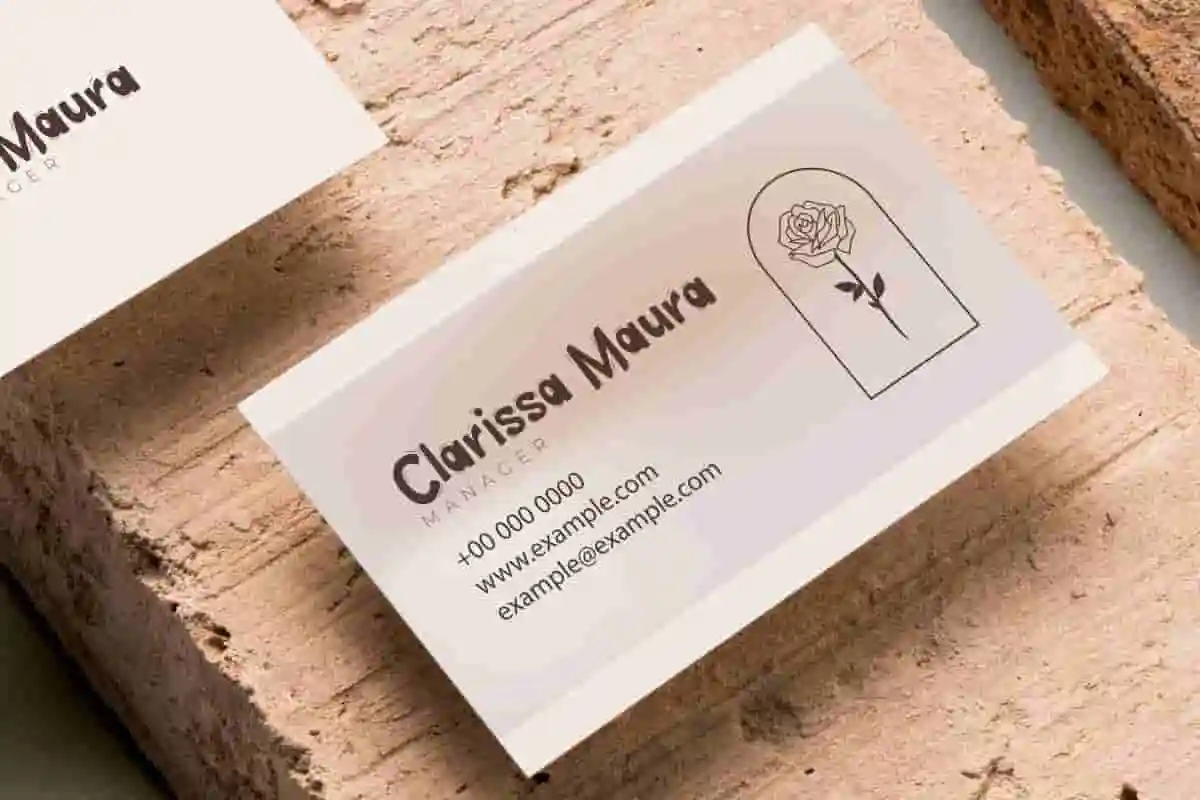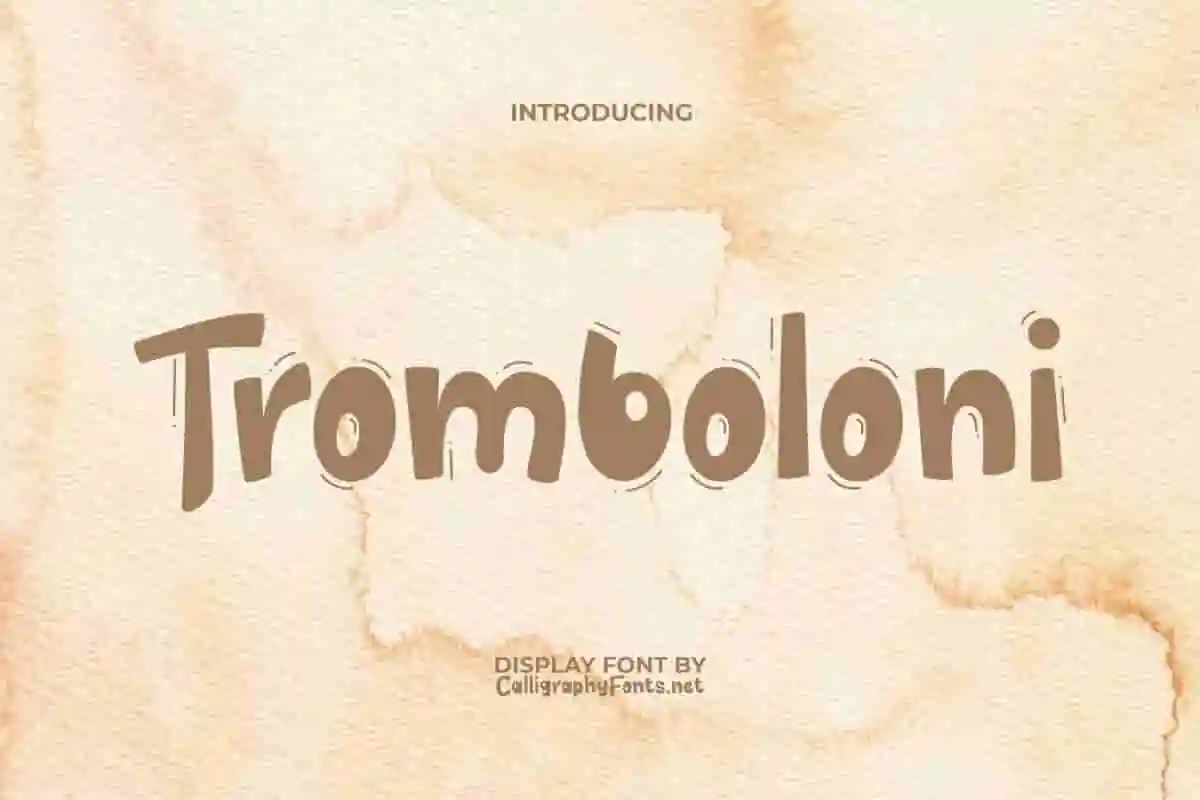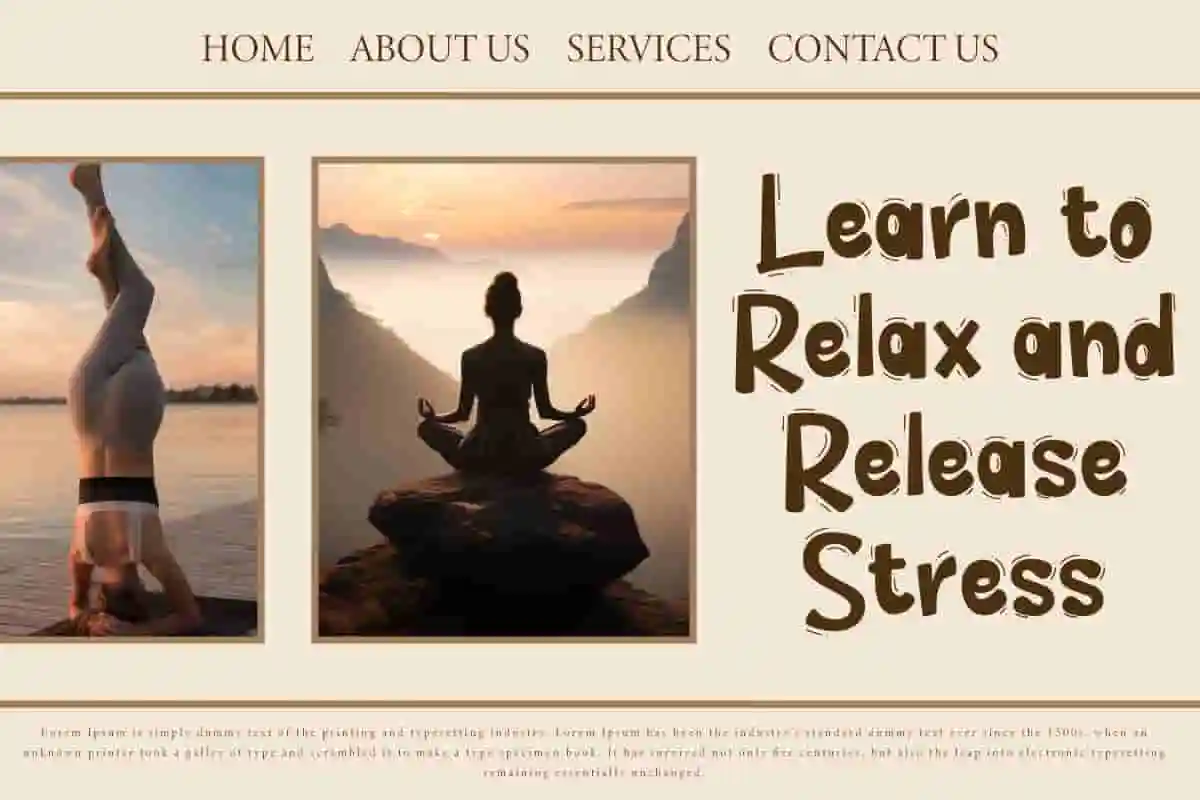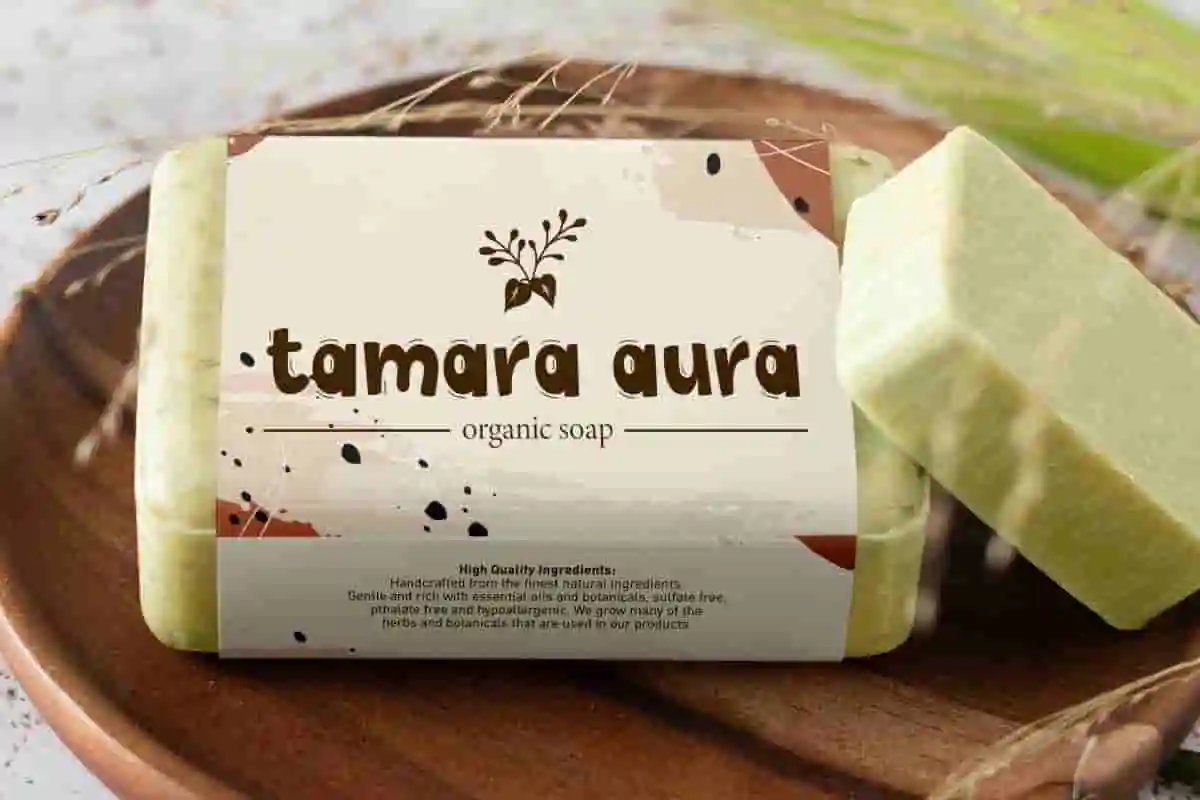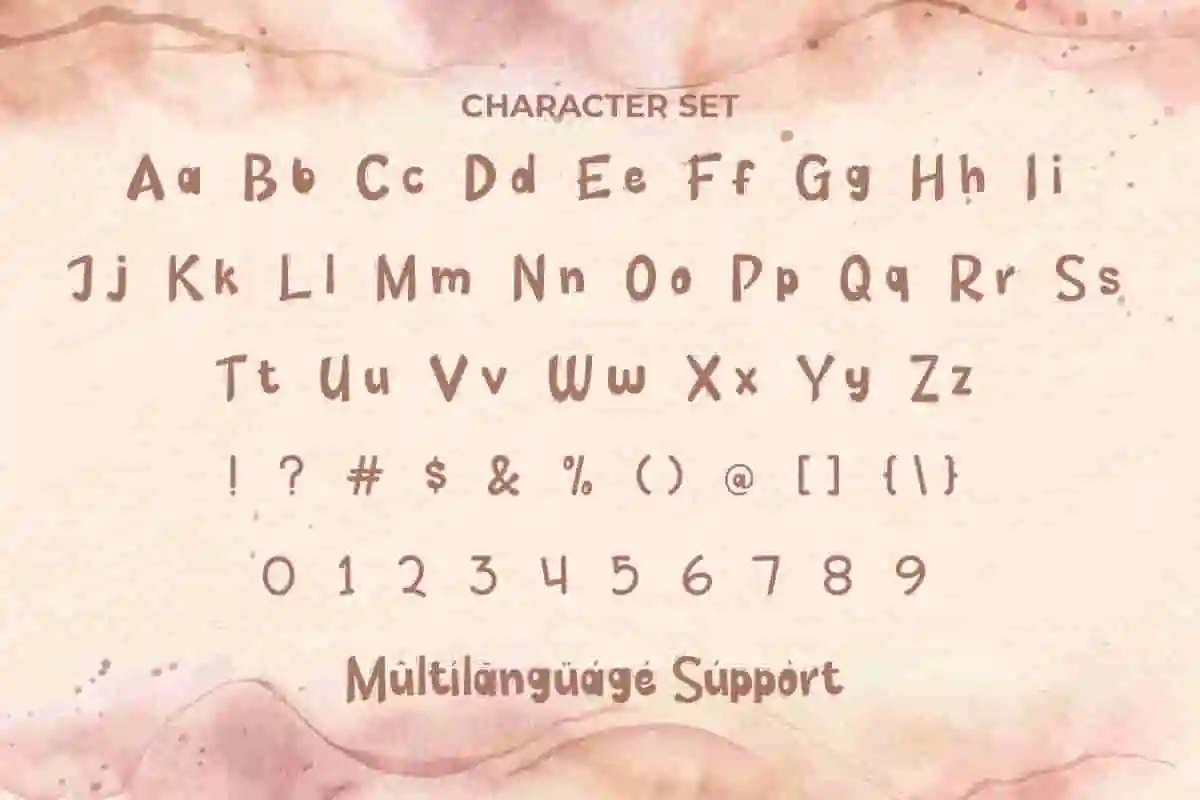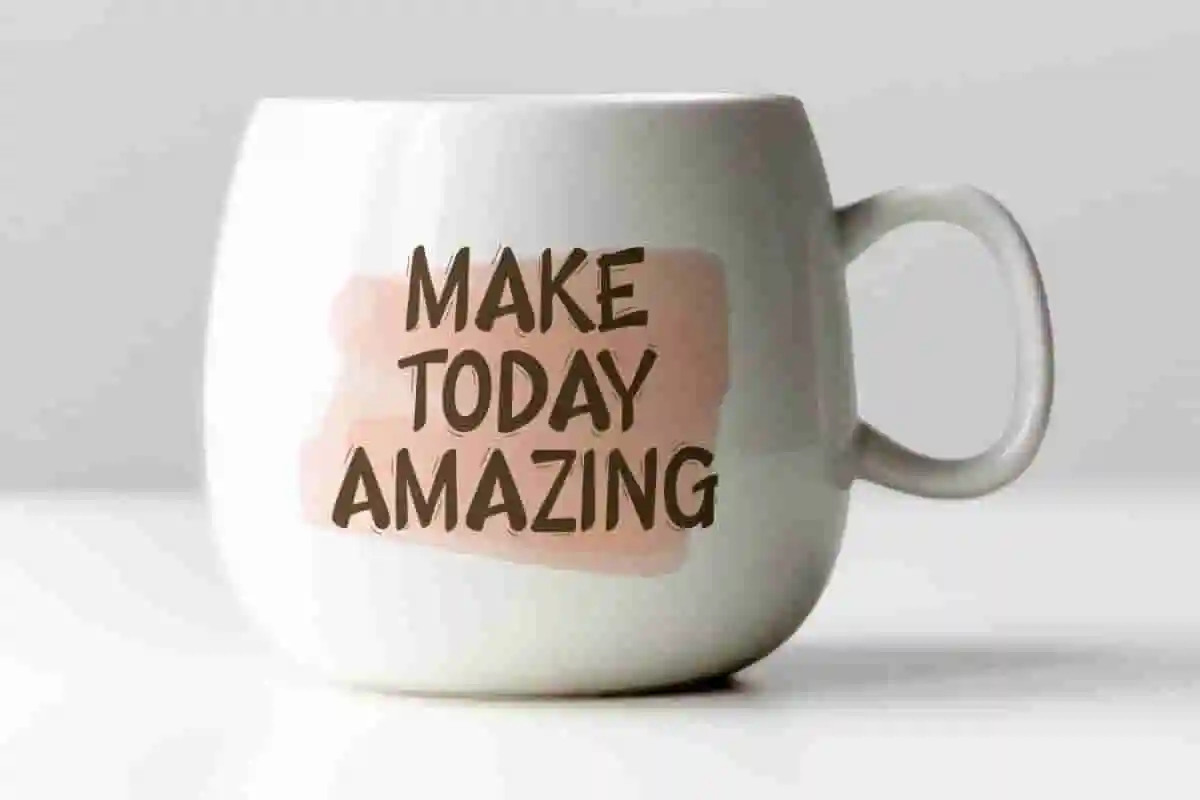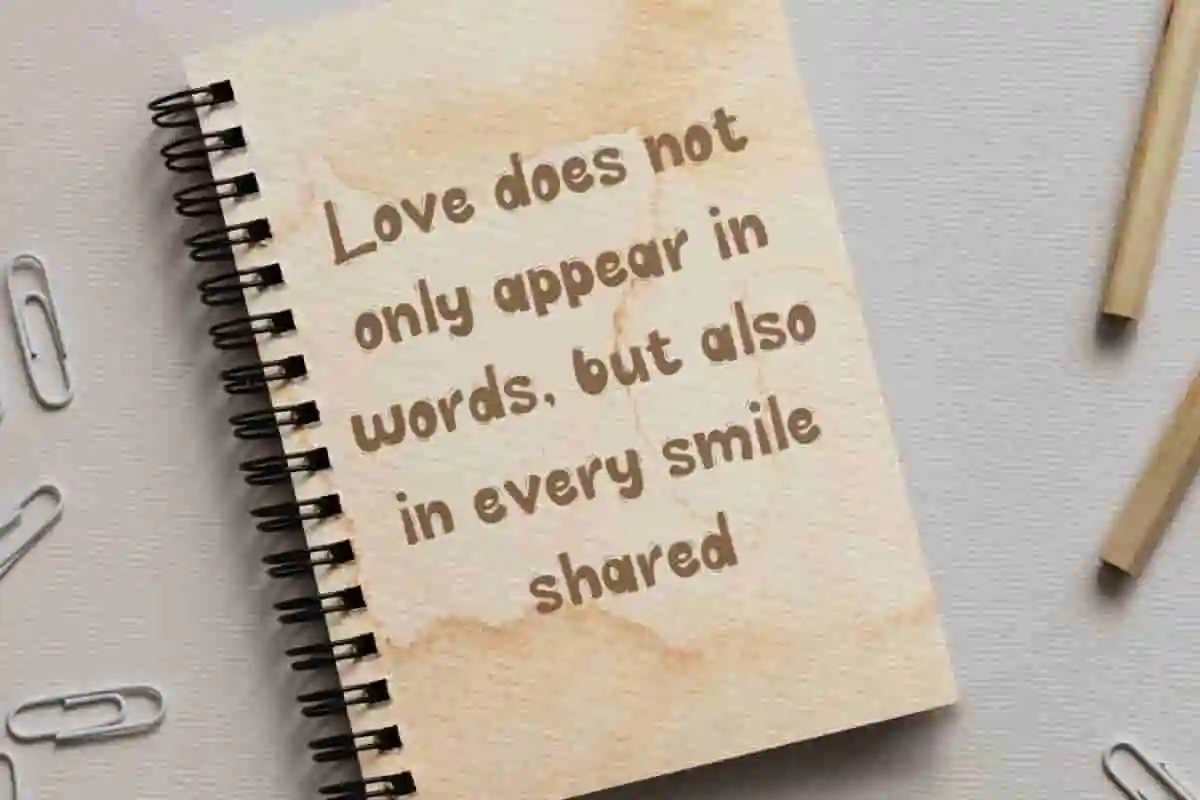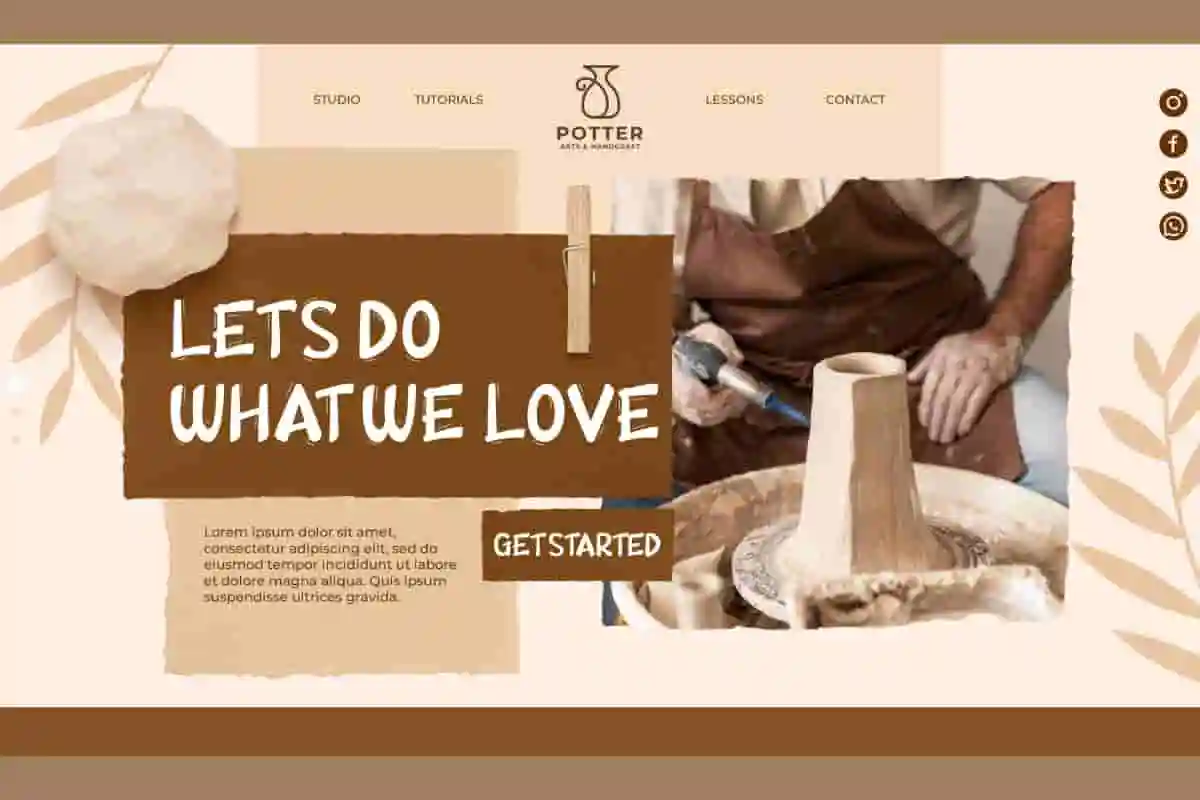
Tromboloni Display Font
Tromboloni Font is a bold , fun and attractive display font with a fun bubble style of cartoon comic font with lots of impact! Use this display font to enhance your advertisement, branding designs, etc.
Tromboloni Font is an attractive display font with a fun bubble style of cartoon comic letter theme. It is very well designed to potentially take any creative idea to the highest level. Use this bold font to add a simple modern retro touch to any design idea you can think of. You can experiment until you reach the cool typography visual goal you are after. Perfect for brochure, business card, heading, label, logo, packaging, poster, quotes, title, watermark, website, etc.
When it comes to making designs unforgettable, the right typeface makes all the difference. Introducing Tromboloni Display Font, a bold and stylish display font crafted to grab attention and spark creativity. Perfect for designers who want their work to stand out, Tromboloni is built to turn any project into a statement.
With its strong personality, playful curves, and modern aesthetics, Tromboloni Display Font is the ultimate choice for eye-catching headlines, posters, product packaging, editorial layouts, and branding. Whether you’re designing for a creative campaign, fashion label, music event, or digital content, Tromboloni delivers a look that’s both trendy and professional.
In today’s competitive design world, standing out is everything. Tromboloni Display Font isn’t just a typeface—it’s a creative tool to amplify your message, enhance your brand identity, and engage your audience at first glance.
Tromboloni Display Font is a creative display font inspired by comic cartoons with unique effects on each character. The best font ever and created to accommodate the needs of creations that require dynamic, eye-catching, and easy-to-read letters. It is perfect for accessories and gifts, fashion, graphic design, handicraft, home furniture, movie, photography, printing, publishing, spa salon, toy store, and so much more.
Tromboloni Display Font comes with a complete set of Uppercase and Lowercase Basic Characters, Number, a large range of Punctuation and Symbol. It is supported with multilingual characters and ready to use both on Windows machine or Mac with simple installations. It’s tested to work well in the Adobe Apps (Illustrator, Adobe InDesign, Adobe Photoshop) CorelDraw, and others. PUA Encode Characters means you can access all the characters easily – Fully accessible without additional design software.